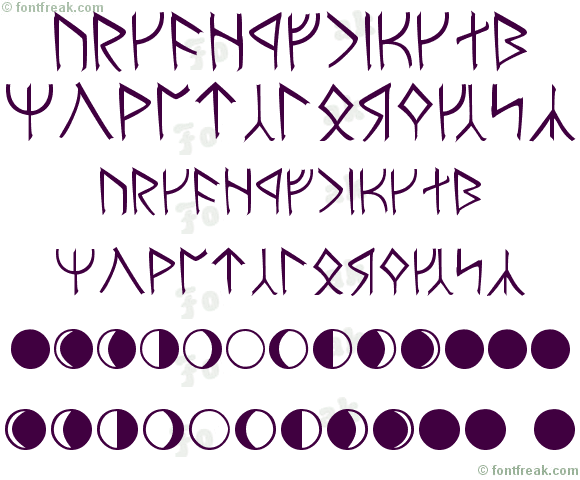
Moria
Moria is a captivating display font designed by Neale Davidson in 2011, classified under the decorative category. This font is characterized by its unique, artistic strokes that blend whimsy with sophistication. The stroke weight varies, offering a playful contrast that draws attention without being overwhelming. The spacing is carefully balanced, ensuring legibility while maintaining an engaging visual flow. Moria features distinctive decorative elements that add a creative flair, making it an excellent choice for various design projects.
This font shines in specific use cases, such as wedding invitations where its charm can elevate the overall aesthetic. It also works wonderfully for movie posters, providing an eye-catching title treatment that can set the tone of the film. Restaurant menus benefit from the font’s artistic style, making the dining experience feel more inviting and unique. Additionally, Moria is perfect for branding projects, helping small business owners create memorable logos that stand out in a competitive market. Content creators looking to add a touch of personality to their digital content will find Moria to be an invaluable asset.
Overall, Moria stands out due to its distinctive visual characteristics and versatility. It captures attention while maintaining a sense of elegance, making it a go-to choice for anyone seeking to create memorable and impactful designs. Whether for personal or professional projects, Moria is a font that truly leaves a lasting impression.